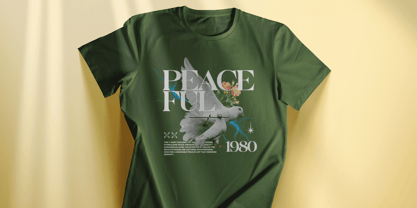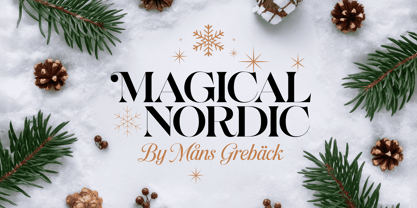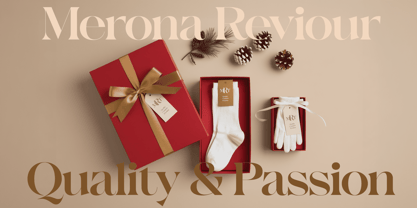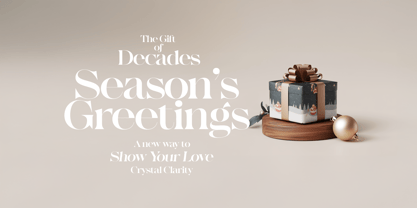
Magical Nordic
by Mans Greback
The Magical Nordic Font Family was designed by Måns Grebäck and published by Mans Greback. Magical Nordic contains 5 styles and family package options.
Magical Nordic is a sophisticated serif typeface that exudes elegance and modernity. Designed with precision, it features fine, clean lines and a beautiful contrast between its thin strokes and defined shapes. The result is a font that feels both timeless and contemporary, perfectly suited for classy designs and elegant displays.
Use one or multiple asterisks * to make snowflakes and stars.
Example: XMAS*****GIFT
Drawing inspiration from the serene beauty of winter and Nordic traditions, this font captures a subtle sense of enchantment. Its graceful structure and well-balanced proportions make it ideal for seasonal themes, such as Christmas or winter festivities, while maintaining a versatile and modern appeal.
The font is built with advanced OpenType functionality and guaranteed top-notch quality, containing stylistic and contextual alternates, ligatures and more automatic and manual features; all to give you full control and customizability.
It has extensive lingual support, covering all Latin-based languages, from North Europa to South Africa, from America to South-East Asia. It contains all characters and symbols you'll ever need, including all punctuation and numbers.
Designed by Mans Greback, Magical Nordic combines classic serif charm with the refinement of modern design, creating a typeface that’s as versatile as it is enchanting.